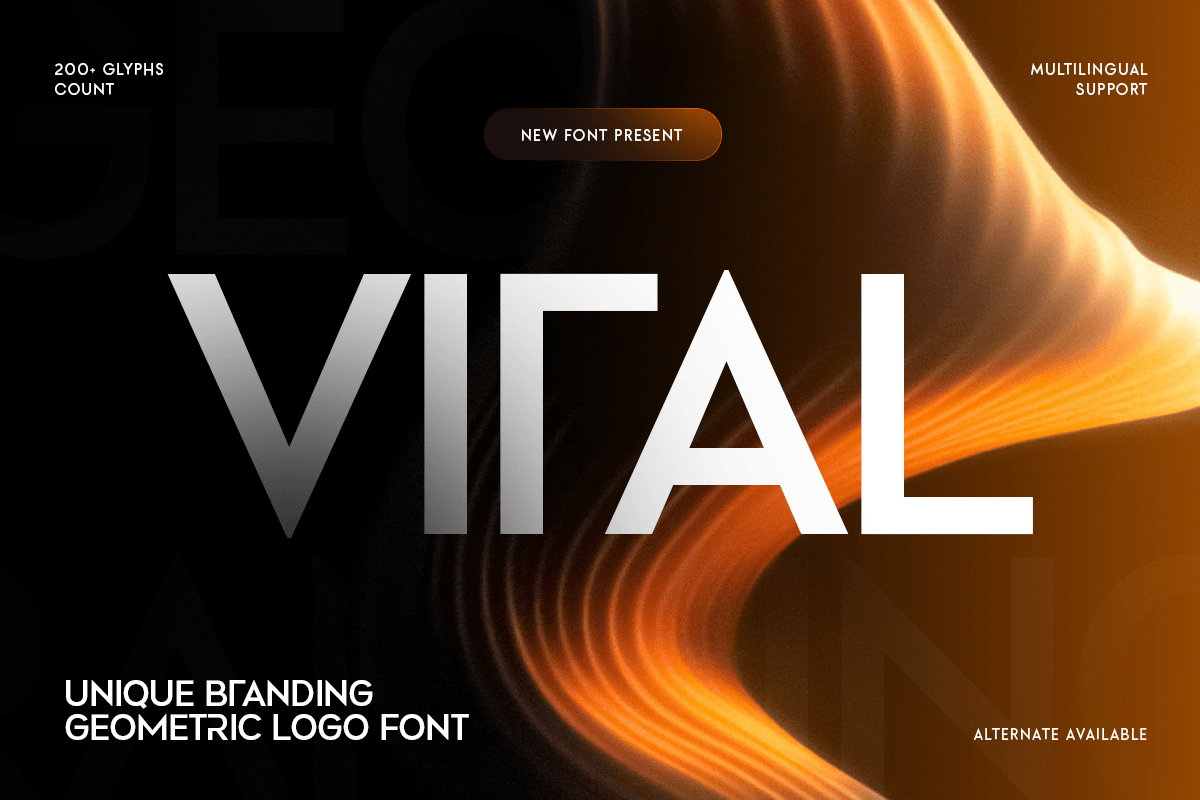
Viral
-Minimal Modern Logo FontViral - Minimal Modern Logo Font
VIRAL is a minimal modern logo font designed to deliver clean clarity and confident visual identity. With sleek letterforms, balanced spacing, and a refined modern structure, this typeface creates a polished tone that feels professional, contemporary, and instantly brand-ready.
Built for logo-focused typography, VIRAL works beautifully across wordmarks, brand identity systems, website headers, UI design, presentations, packaging, labels, signage, social media graphics, and digital marketing visuals. Its minimal style keeps every composition sharp and readable, helping brands communicate with simplicity and strong visual consistency across both print and digital layouts.
Whether you’re building a startup identity, refining a corporate system, designing a tech brand, or creating a clean product logo, VIRAL provides a modern typographic foundation that makes your branding feel smart, sleek, and memorable.
Inspiration Behind VIRAL
VIRAL is inspired by minimal identity systems and contemporary logo typography—where simplicity, precision, and clean structure create strong brand recognition. The design focuses on refined spacing and modern visual balance to support sleek wordmarks, digital-first branding, and professional communication with a timeless minimal feel.
VIRAL Font Features:
Minimal modern letterforms optimized for logo and wordmark design
Clean structure for sleek branding and visual consistency
Strong readability for headlines, UI, and professional layouts